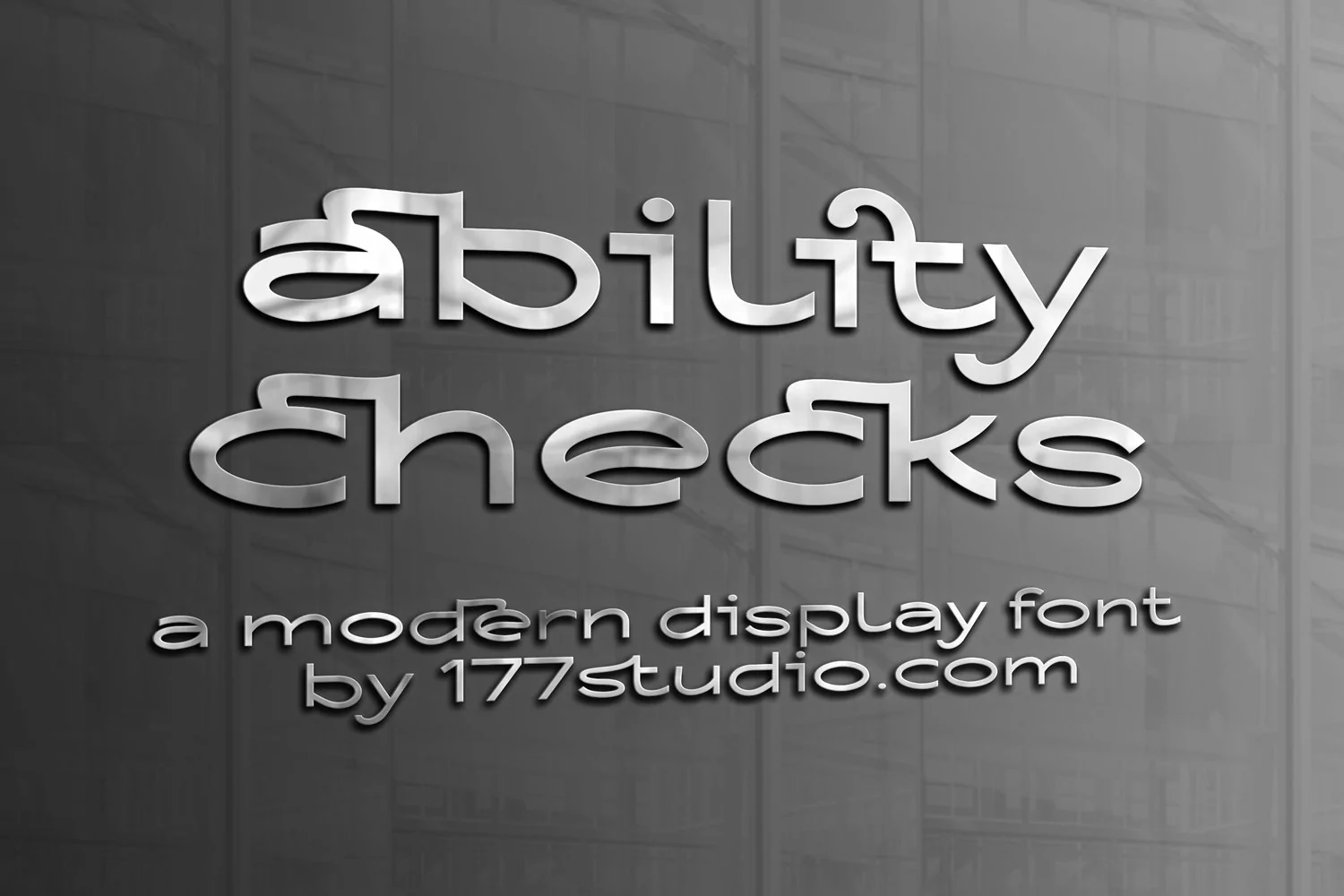
Ability Checks Font
Ability Checks Font is incredibly elegant and beautifully rounded sans serif font that will add a timeless look to any design project! This font perfect for all kind of design: social media and visual content, web and UI design, posters and art collage, branding and logos, wedding typography and modern hi-tech design.
To make it look more unique, here we prepared some ligatures:ab ah ak at cb ch ck ct eb eh ek et fj gb gh gk gt ob oh ok ot st th da dc de dg do hb hg hm hh hn hr tm tn ss jb jh jk jt ib ih ik it mg mm mh mn mr nb ng nm nh nn nr...
Include Fancy Style on Every Uppercase and Some Lowercase